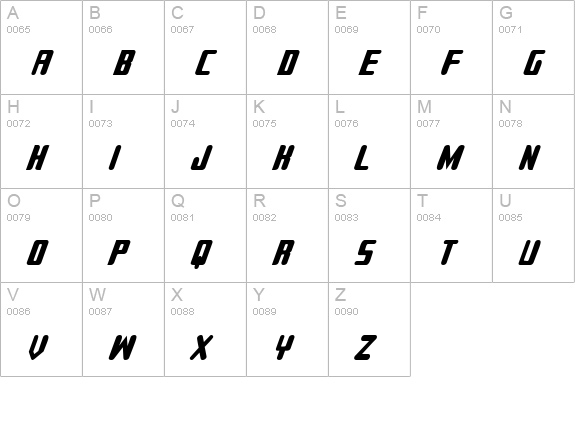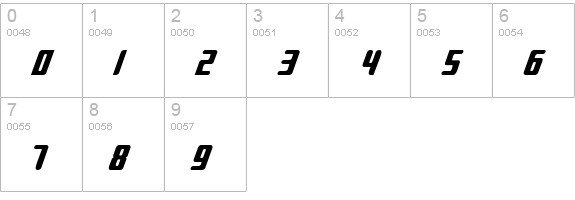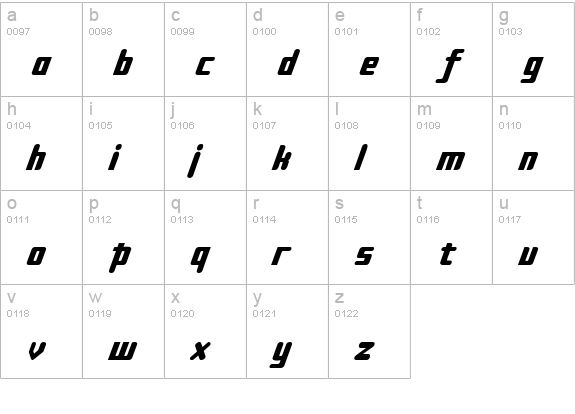
Sujeta Bold Italic is a strong, high-contrast, italic variant in the Sujeta typeface family \xE2\x80\x94 well suited to headlines, attention-grabbing titles, and strong calls-to-action.
Sujeta Bold Italic font is a striking and versatile typeface that exudes elegance and sophistication. Its bold and italic design adds a touch of modernity and flair to any project, making it perfect for headlines, titles, and branding materials. The sleek curves and sharp angles of Sujeta Bold Italic create a sense of movement and energy, drawing the eye and commanding attention. What sets Sujeta Bold Italic apart is not just its stunning aesthetics, but also the fact that it is available for free download at FontsMarket.com. This means that you can easily access this high-quality font without any cost, making it a valuable addition to your design toolkit. Whether you're working on a website, advertisement, or print project, Sujeta Bold Italic is sure to make a bold statement and leave a lasting impression on your audience.